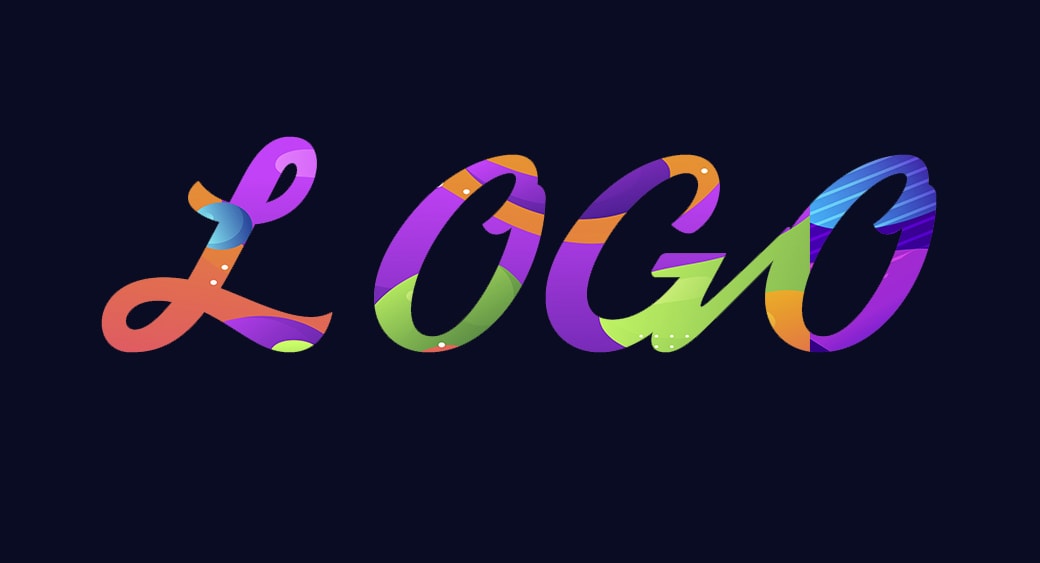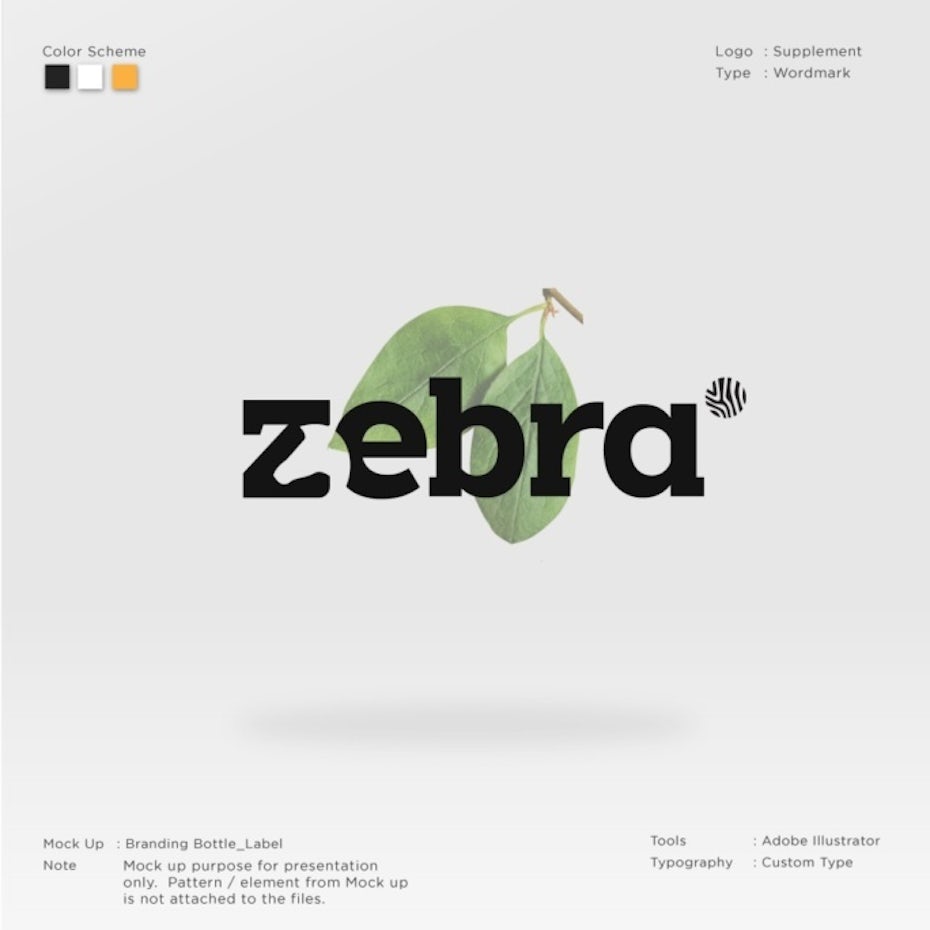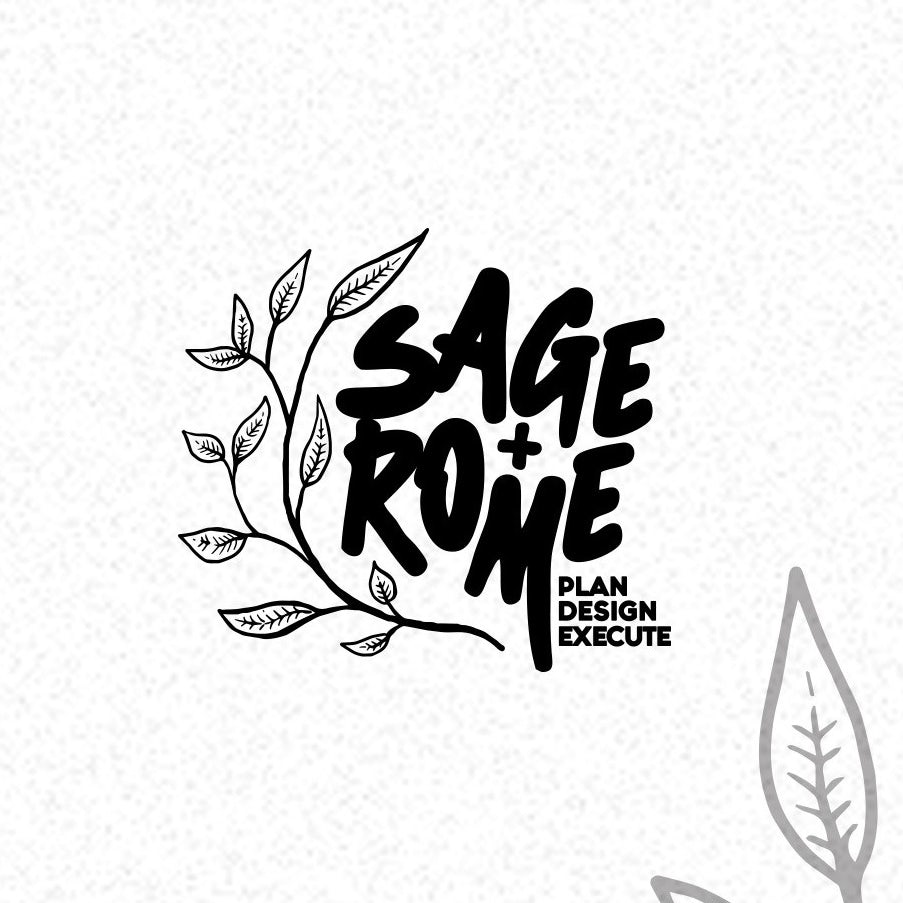
Indigo is a modern font featuring a chunky design which makes it perfect for designing logos for startups websites and creative brands. This font is perfect for logo and badge designs.
50 Logo Fonts Every Designer Should Know About
Logo design fonts 2020. ApexMK3 is an ideal free font if you are looking for a font for poster design or website header design requirement. Indigo Chunky Font Duo. The key to this visually pleasing trend is the use of big-personality typography which adds rhythm and contrast to compositions.
ADCA is a modern font that has a bold and stylish design. Typography is currently playing a central role in web design with progressive improvements like Variable Fonts CSS Shapes FlexBox CSS Grids and Subgrid definitively changing the way we work with typography in web design. 10 Best Logo Fonts 2020 Best fonts for logo Editing PixelLab PicsArt PRANAY LUCKY EDITS bestphotoediting tutorials pranay_lucky_edits.
Pair one of these free logo fonts with an icon and you are ready to start your business. Breton Another great brand font for 2020 Breton is a geometric slab serif inspired by the city of Boston. It is a free to use font for personal as well as commercial use.
Suited for editorial headlines short text logos and brand design Jazmin is a hugely versatile font with 8 weights plus a more playful counterpart. You can use it for free with both personal and commercial projects. Logo fonts are essential for the visual appearance of your brand name.
Another unique free font with a futuristic design. The font is. In this post Logaster and Colin Finkle from BMB have outlined the much-anticipated 2020 logo design trends that are expected to shape the logo design.
Logo Design Trends for 2020. This time however instead of looking back we decided to take a sneak peek into the future. This font has a bold geometric design which makes it visually appealing and ideal for headings.